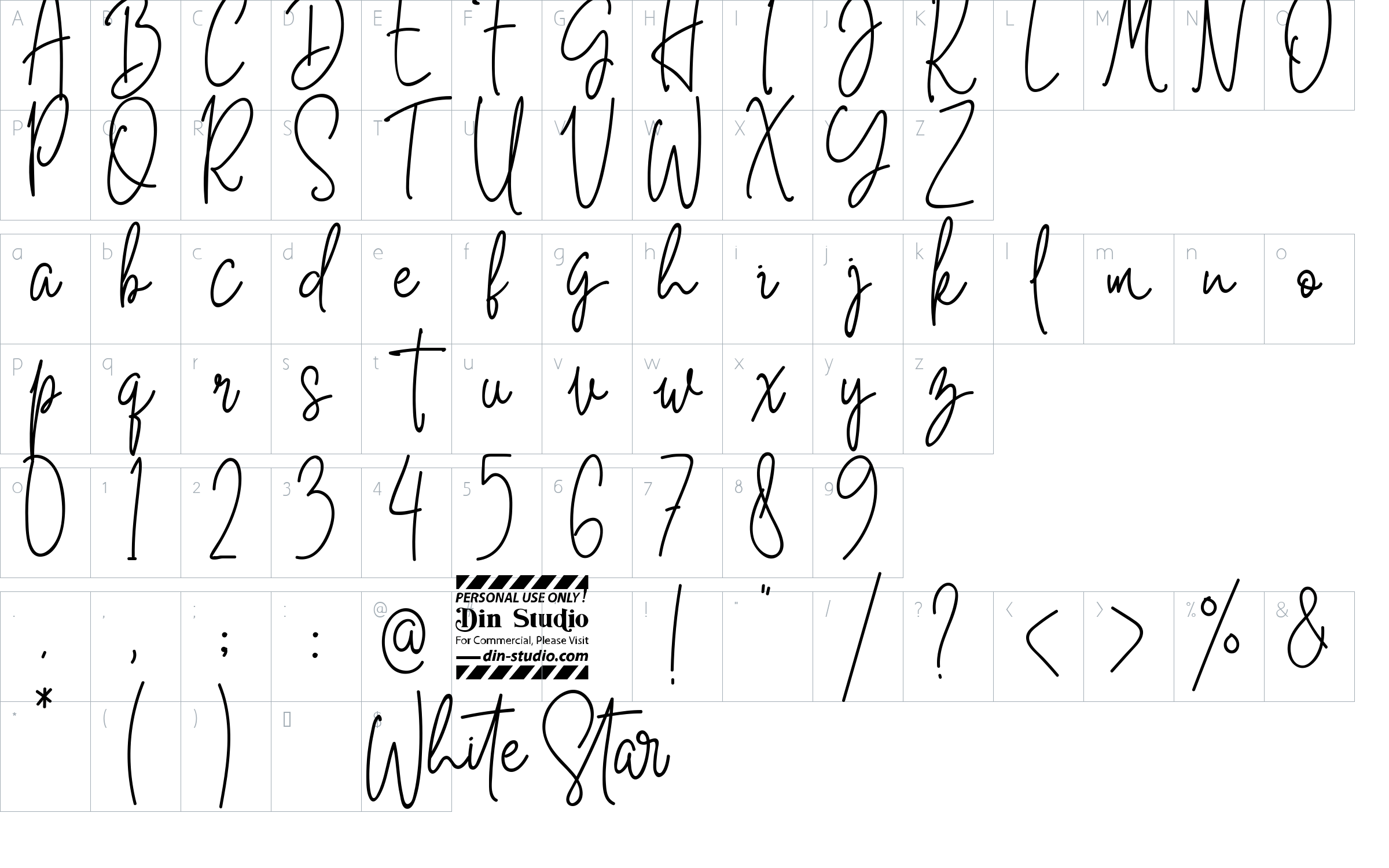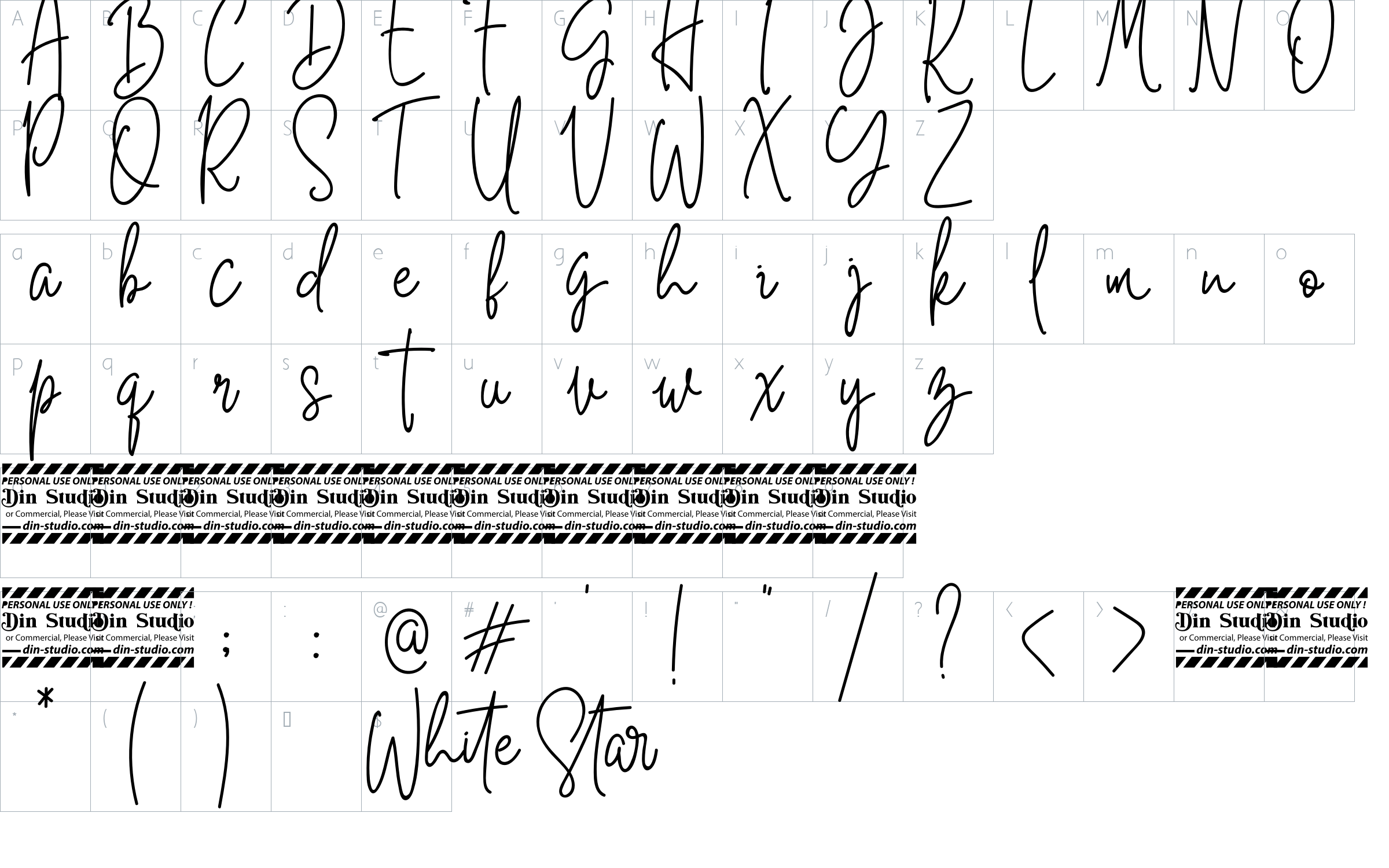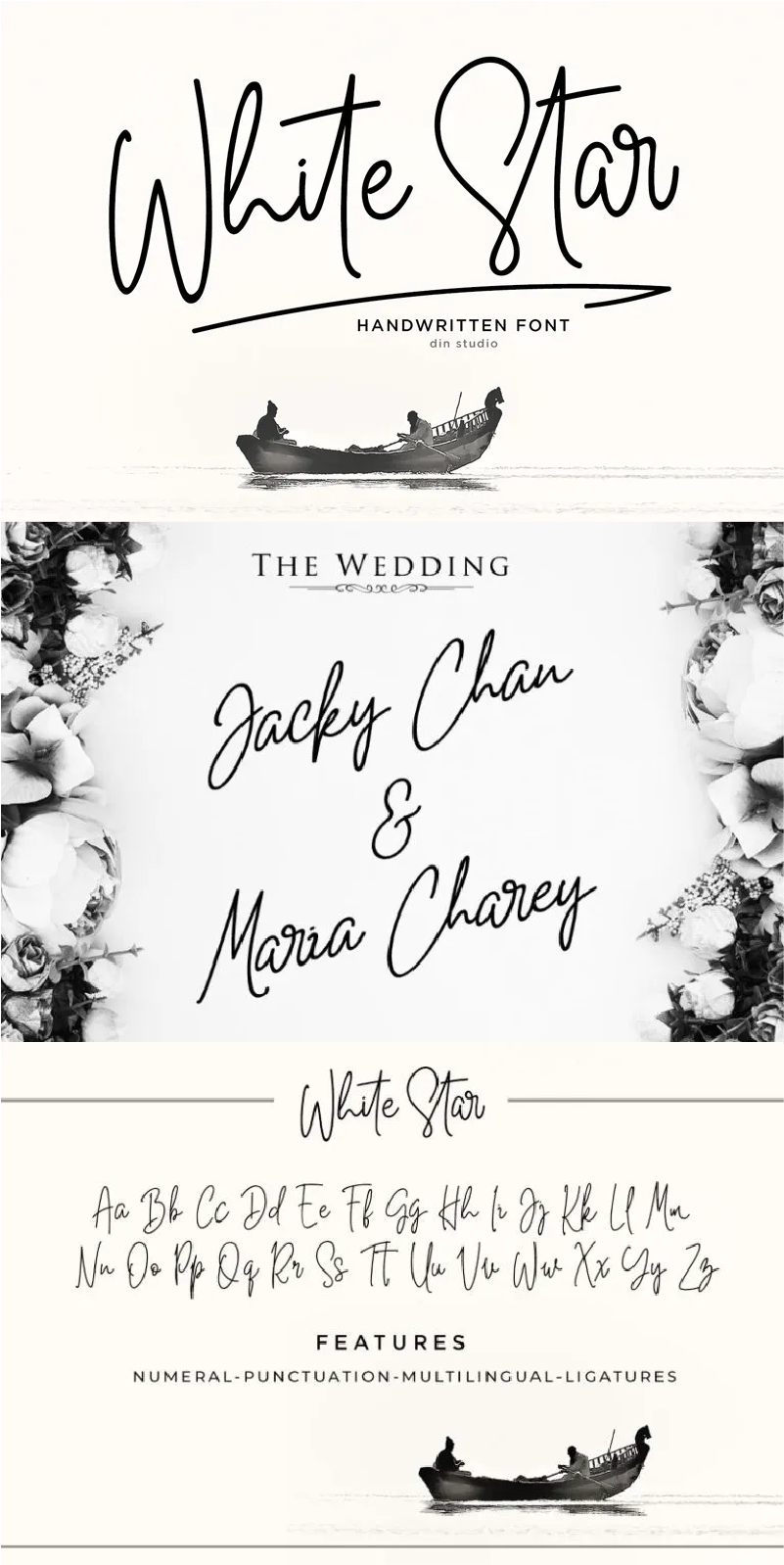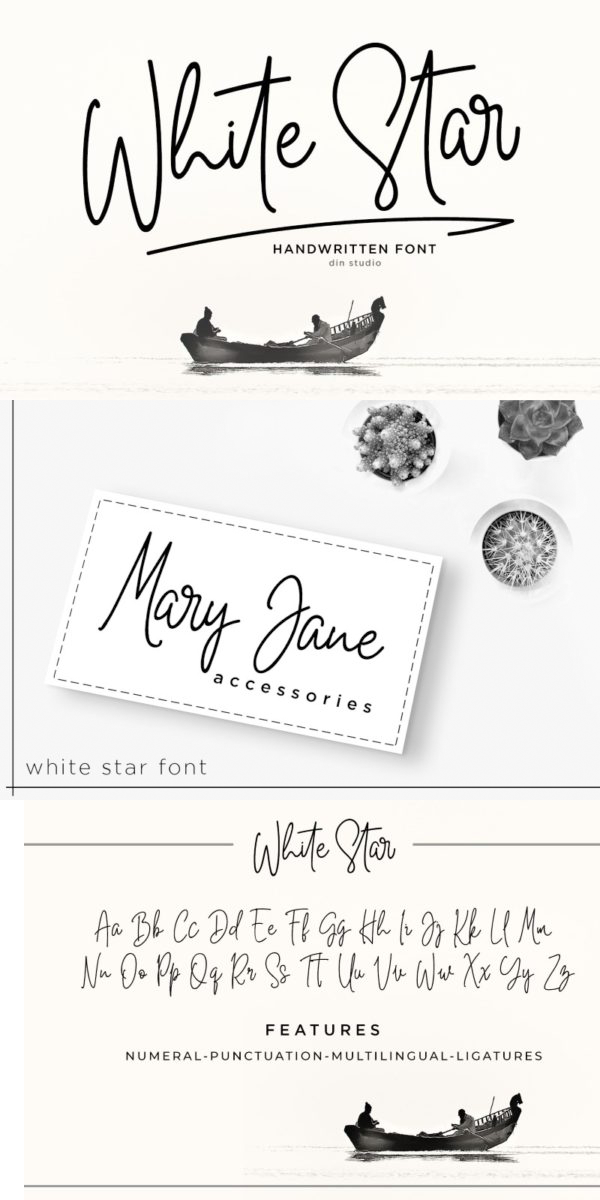
White Star Font
About White Star
Introducing White Star for your amazing project designs. With a chic and natural handwritten style, it brings a beautiful and chic typeface. White Star is best used for logotypes, brandings, weddings, and quotes. See the previews above to get some inspiration on how you can use them. Happy designing!